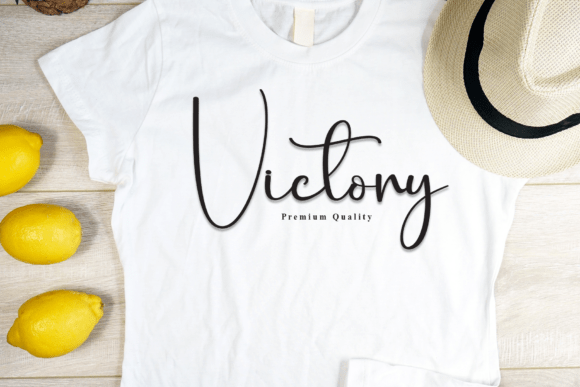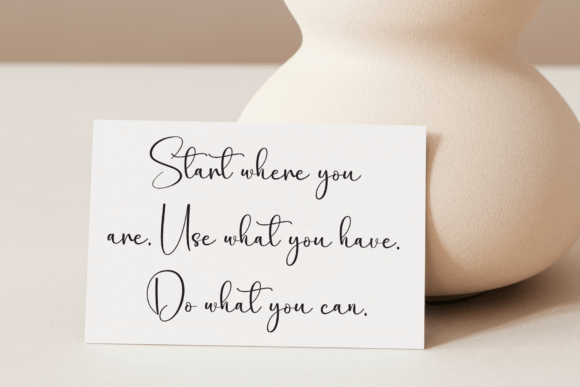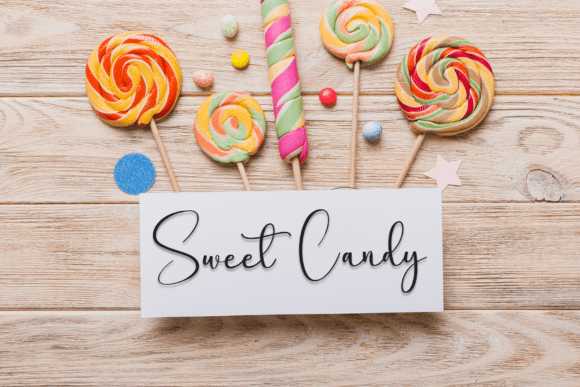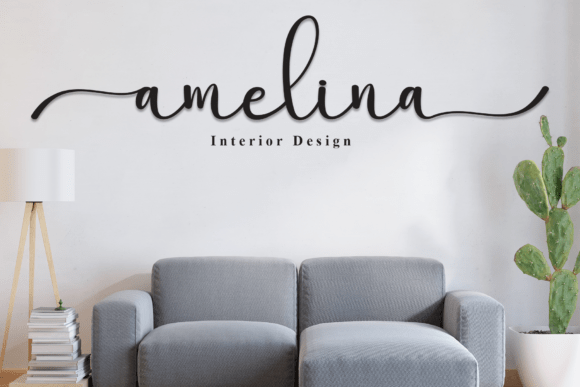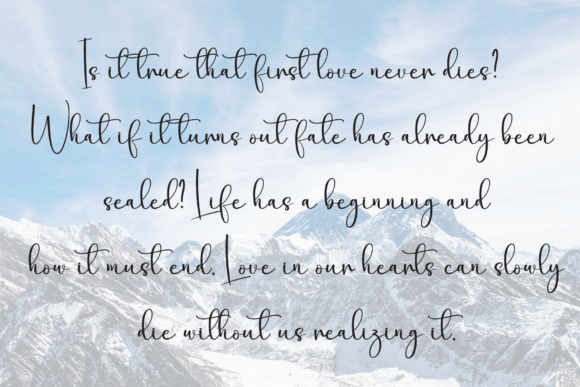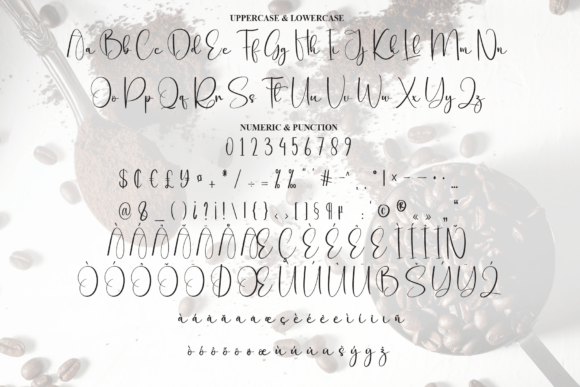
Coffee Font: Elevate Your Design with a Stylish Handwritten Script
In the world of typography, few fonts manage to strike a balance between elegance and modernity as effortlessly as the Coffee Font. This stylish handwritten script font has been gaining popularity among designers and crafters alike for its unique ability to bring warmth, sophistication, and a personal touch to any project. Whether you’re working on branding, invitations, social media content, or any other creative endeavor, Coffee Font is an excellent choice to add a refined and charming flair.
The Essence of Coffee Font
Coffee Font is characterized by its flowing strokes and organic curves, which give it a distinctly elegant yet approachable feel. This font combines the best of both worlds: the sophistication of traditional script typography and the modern flair of contemporary design. The result is a typeface that feels both timeless and current, capable of enhancing a wide range of design projects.
Key Features of Coffee Font
- Elegant and Modern Design: Coffee Font boasts a stylish and contemporary look, making it perfect for designers seeking a modern edge.
- Flowing Strokes and Organic Curves: The font’s fluidity adds a dynamic and artistic feel to any text, setting it apart from more rigid typefaces.
- Versatility: Suitable for a variety of applications, from luxury branding and formal invitations to engaging social media posts.
- Effortless Charm: Adds a personal and refined touch to projects without appearing overly formal or contrived.
Applications of Coffee Font
The versatility of Coffee Font makes it an invaluable asset for designers and crafters working on a diverse array of projects. Here are some of the ideal applications for this beautiful typeface:
Branding and Logo Design
In the realm of branding, establishing a strong visual identity is crucial. Coffee Font can help elevate your brand’s image with its sophisticated and modern appeal. Its elegant strokes and curves can convey a sense of luxury, quality, and approachability, making it an excellent choice for logos, business cards, and other branding materials.
Invitations and Stationery3>
For those special occasions, such as weddings, baby showers, or milestone events, Coffee Font can add a touch of elegance and personal warmth to invitations and stationery. Its flowing script can make any announcement feel more intimate and significant.
Social Media and Marketing Content
In the digital age, capturing the audience’s attention on social media and other online platforms is more challenging than ever. Coffee Font can help make your content stand out with its unique charm and sophistication. Use it for social media posts, blog headers, or marketing materials to add a refined touch that resonates with your audience.
Tips for Using Coffee Font Effectively
To maximize the impact of Coffee Font in your designs, consider the following tips:
- Pair with Complementary Fonts: Combine Coffee Font with simpler, sans-serif fonts for body text to create a balanced and visually appealing design.
- Adjust Letter Spacing: For optimal readability, especially in longer texts, adjust the letter spacing to ensure a comfortable flow.
- Utilize Size and Weight Variations: Take advantage of the font’s various sizes and weights to create visual hierarchy and emphasize key messages.
- Experiment with Colors: While the font itself is elegant, experimenting with colors can further enhance its appeal and adapt it to your project’s specific needs.
Coffee Font stands out as a stylish and versatile typeface that can elevate a wide range of design projects with its elegant and modern appeal. Its flowing strokes and organic curves bring a unique blend of warmth, sophistication, and personal charm, making it an excellent choice for designers and crafters looking to add a refined touch to their work. Whether for branding, invitations, social media, or any other creative endeavor, Coffee Font is sure to leave a lasting impression.